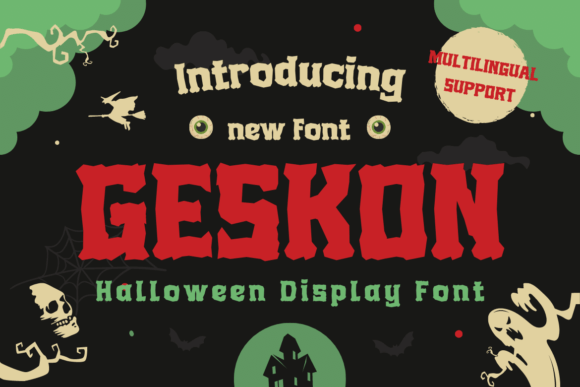
Brace yourself for Geskon Font, a spine-tingling display font that will unleash your imagination and send shivers down your spine. Crafted by the masterminds at Twinletter, this font is a haunting fusion of the macabre and the whimsical, the perfect companion for your most bewitching creations.
With its twisted characters and wicked charm, Geskon Font is a spellbinding choice for conjuring up designs that will leave your audience spellbound. Its meticulously crafted letters dance and writhe like shadows in the moonlight, evoking a sense of mystery and intrigue that will captivate and enthrall.
Unleash your dark side and let Geskon Font take you on a journey through the realm of the supernatural. Its eerie yet playful aura is ideal for conjuring up eye-catching posters, spine-chilling flyers, and otherworldly invitations that will make your designs stand out from the mundane.
Picture a haunted house poster emblazoned with the Geskon Font, its letters twisted and menacing, daring adventurers to step inside. Or imagine an invitation to a Halloween party, its text dancing across the page like a ghostly apparition, beckoning you to join in the festivities.
Geskon Font is more than just a font; it's a portal to a world of enchantment and mystery. Its bewitching curves and haunting edges will add a touch of magic to any project, transforming your words into captivating spells that will mesmerize and enchant your audience.
So, if you seek a font that will cast a spell on your designs, look no further than Geskon Font. Its dark allure and captivating presence will transport you to a realm where imagination reigns supreme, where the ordinary becomes extraordinary, and where the boundaries of creativity dissolve into the ethereal mist.